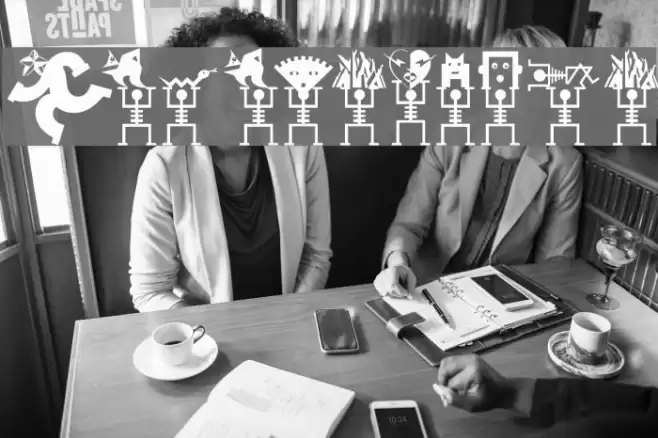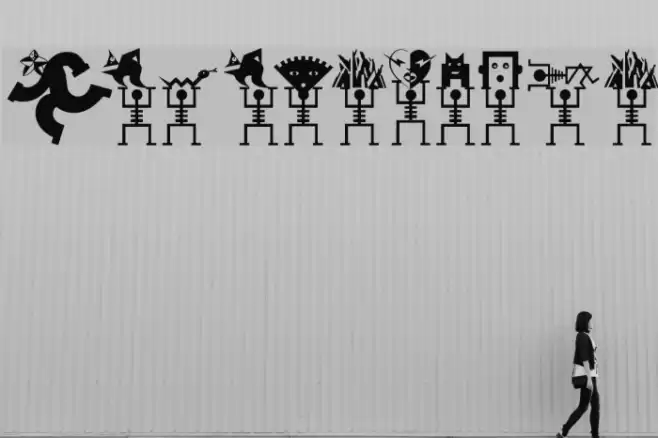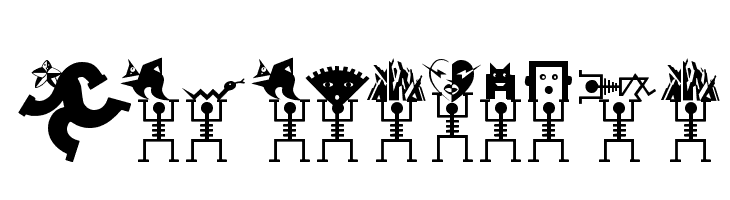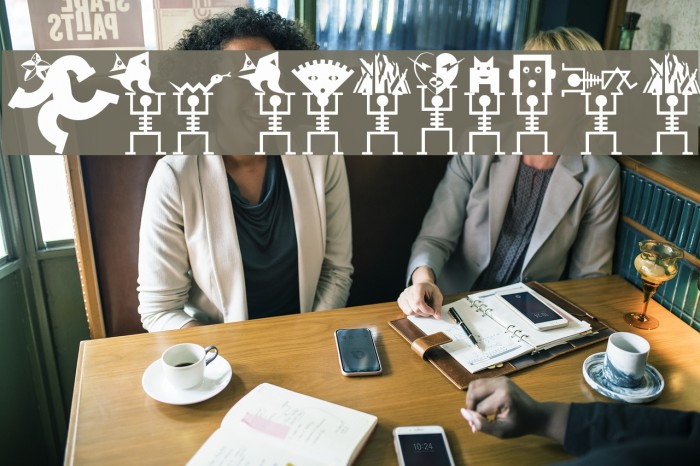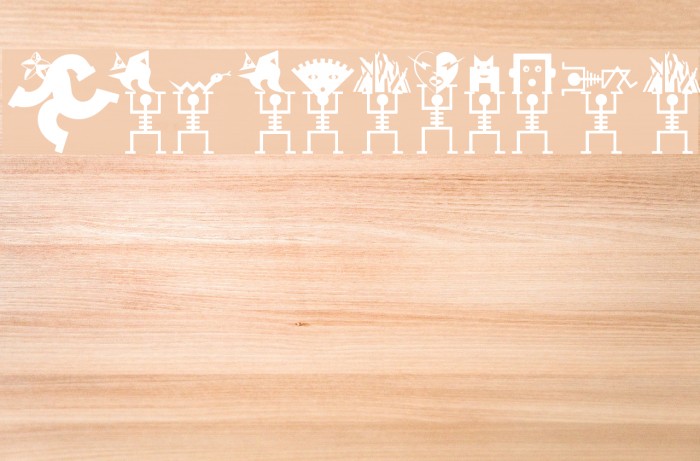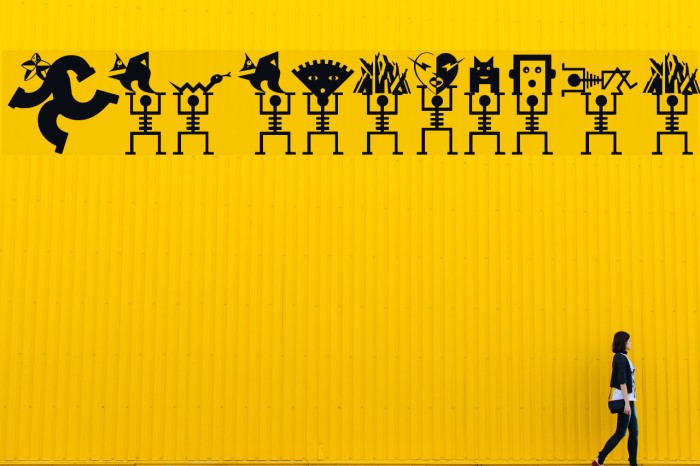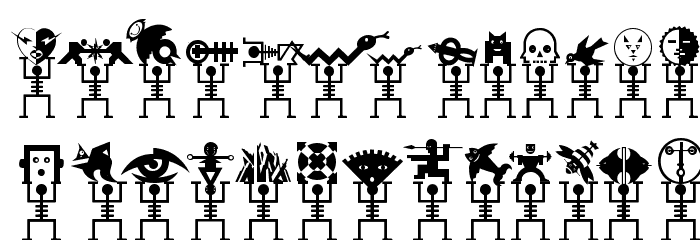
Logotrainer Font
Logotrainer Description
This is a highly decorative and artistic font that features unique, abstract characters resembling tribal or primitive art. Each character is a complex illustration, incorporating elements like faces, animals, and geometric shapes. The design is bold and striking, with a strong emphasis on visual storytelling through each letterform. The characters are not traditional letters but rather intricate symbols that convey a sense of creativity and cultural richness. This font is not suitable for body text but serves as an artistic expression, ideal for projects that require a distinctive and eye-catching aesthetic.
A decorative font with abstract, tribal-inspired characters from Uncategorized fonts.
- Proposed Projects: Ideal for artistic projects, cultural event posters, unique branding, and creative logos.
- Use Case: Logos, Artistic projects, Posters